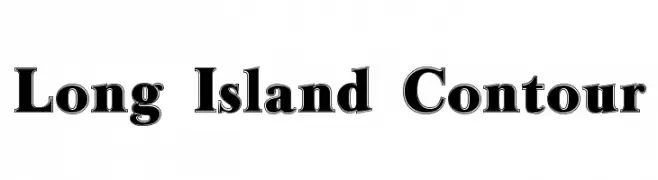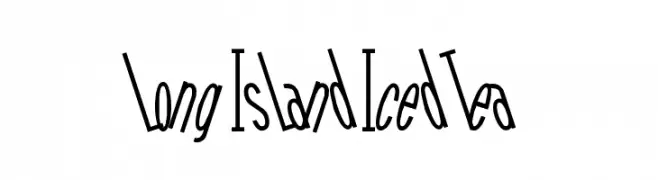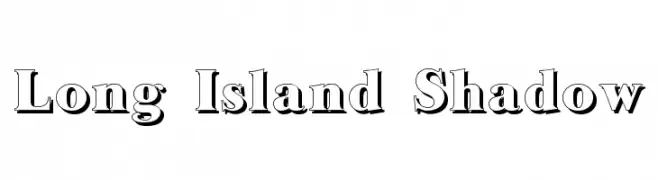
A bold, distressed font with a vintage, grunge texture.
A bold, distressed font with a vintage, grunge aesthetic.
A tall, narrow, and modern sans-serif font with a sleek and minimalist style.
A lively and elegant script font with flowing, cursive letterforms and decorative flourishes.
A classic serif font with bold strokes and high contrast, exuding elegance and tradition.
A bold, decorative font with a three-dimensional contour effect.
A dynamic, angular font with elongated characters and a modern edge.
A bold serif font with a dramatic shadow effect, ideal for striking headlines.
A graceful and fluid script font with a natural handwritten style.